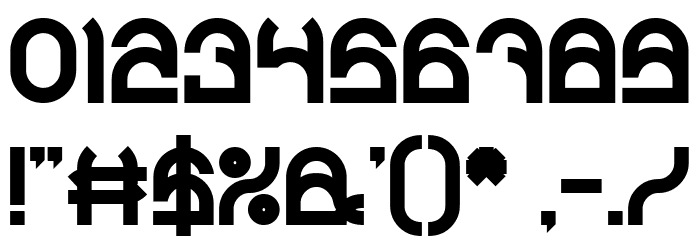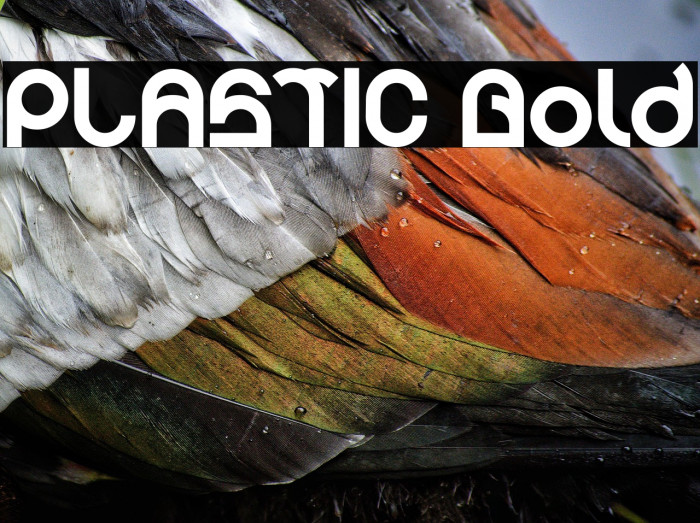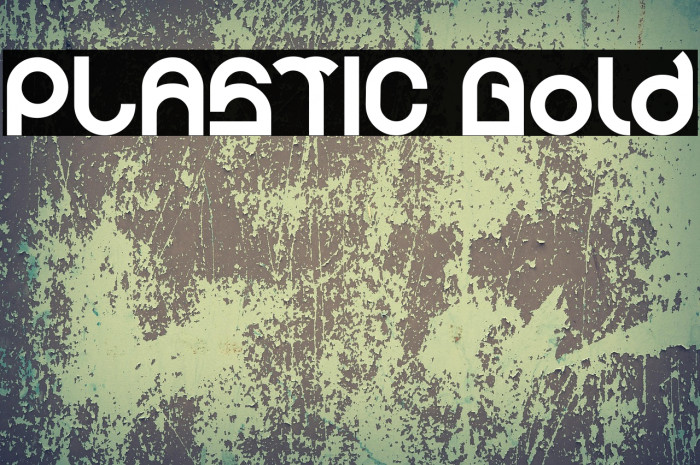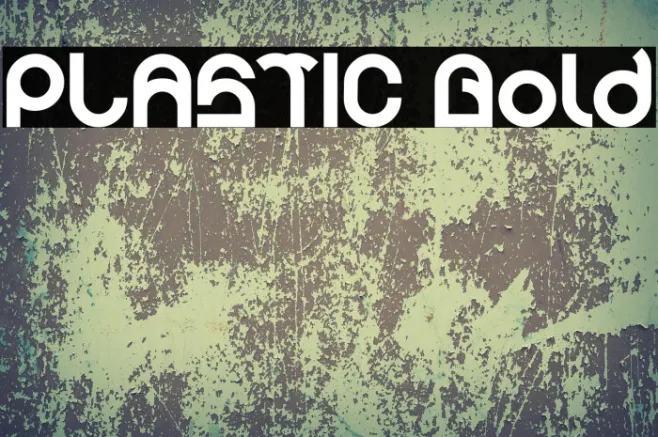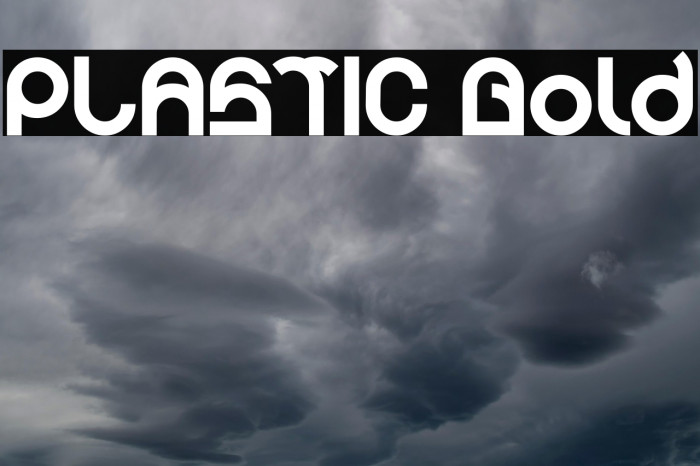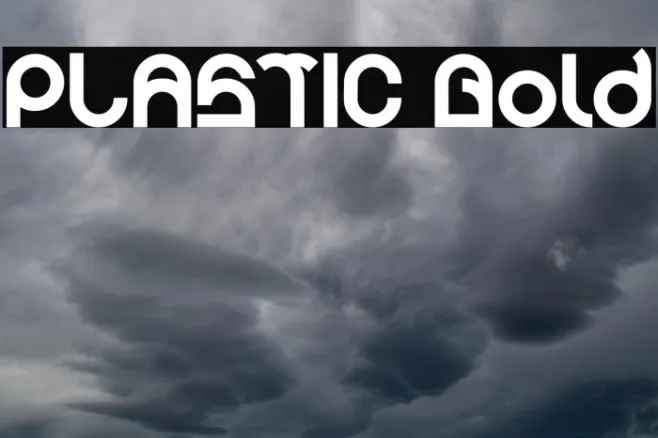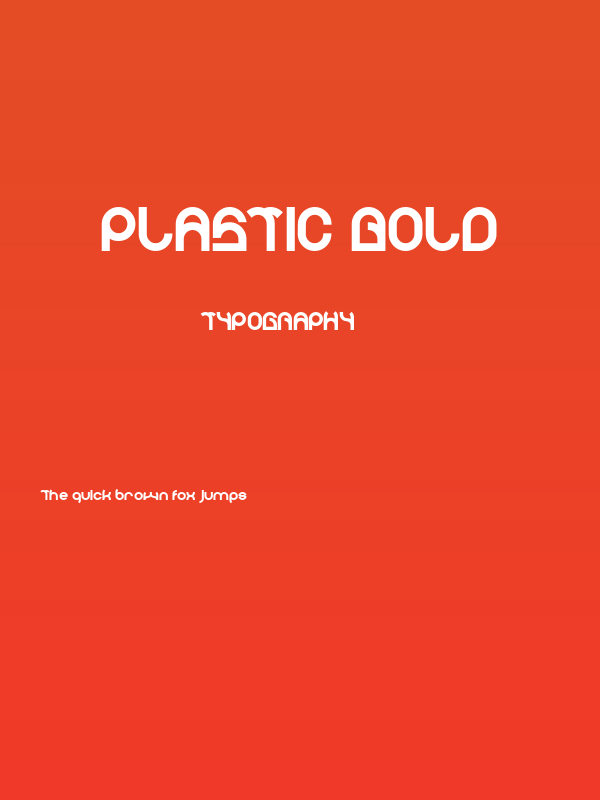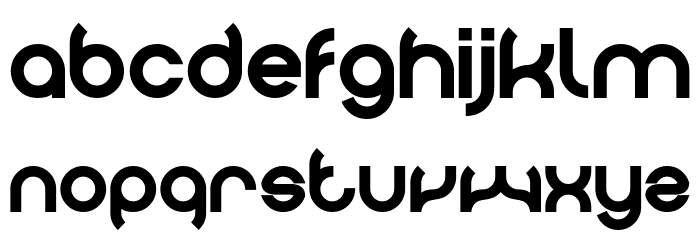
PLASTIC Bold Font
PLASTIC Bold Description
This font features a bold and futuristic design with geometric shapes and unique curves. The uppercase letters have a strong presence with sharp angles and a distinct, modern aesthetic. The lowercase letters maintain a consistent style, offering a seamless flow between characters. Numbers and special characters are designed to match the boldness and geometric nature of the alphabet, making them stand out. The overall design is eye-catching and suitable for projects that require a modern and innovative look.
| Proposed Projects | Ideal for branding, posters, and digital media projects that require a modern and bold statement. |